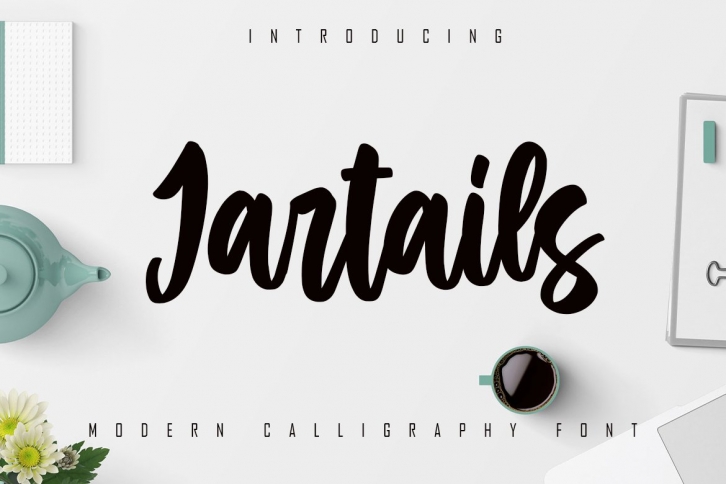
Jartails is a beautiful font that was designed by SkiillerStudio. It's a great choice for designers and creatives who need such a font. It was released on April 11, 2021 and the file size is 7.41 MB. Jartails may give a more youthful, expressive and casual look to your project. It is a very beautiful, refined, elegant, and high-quality font.